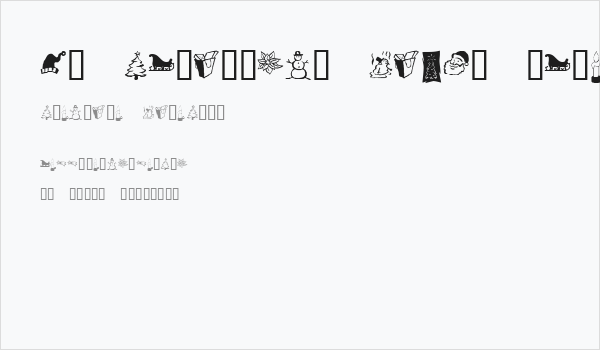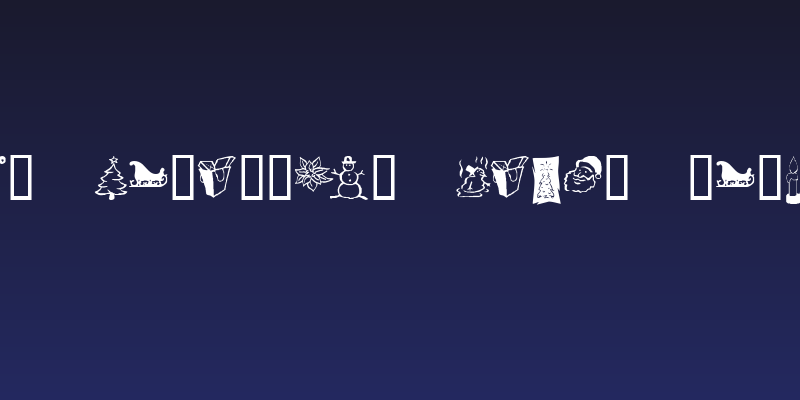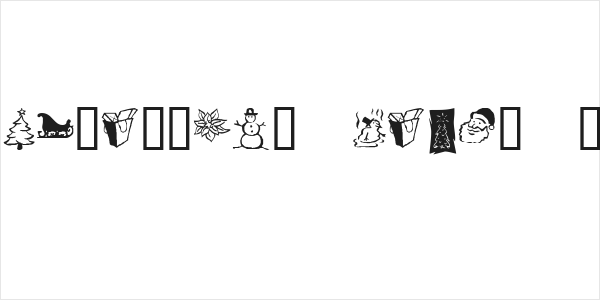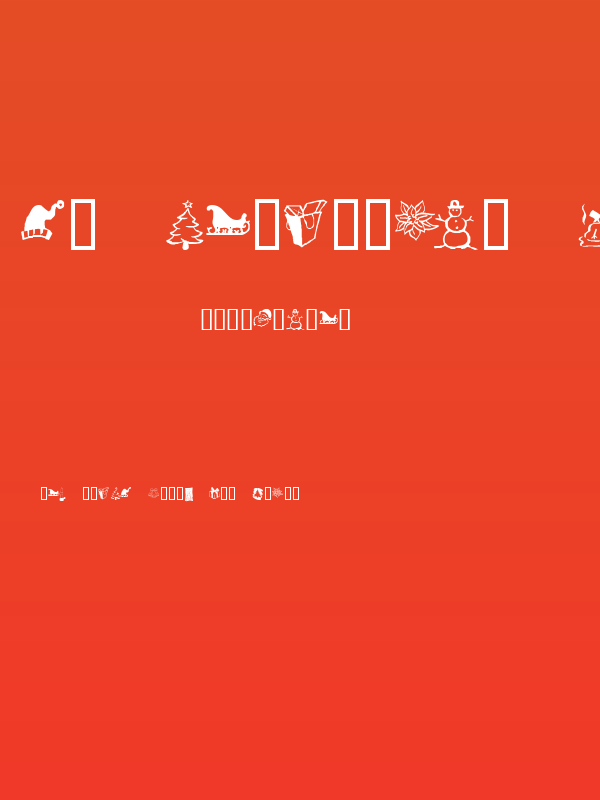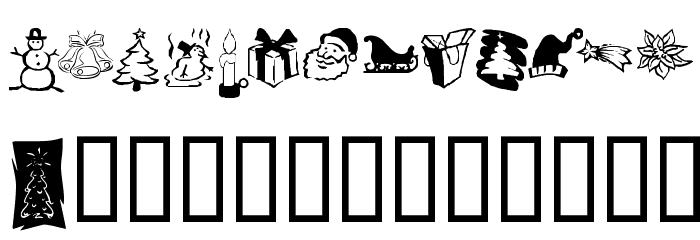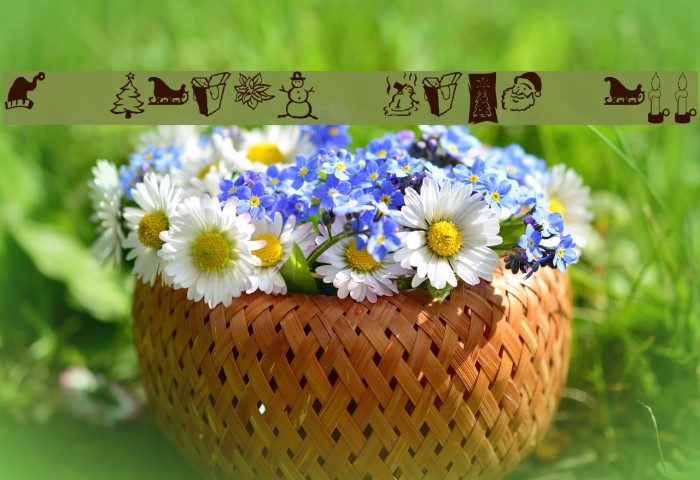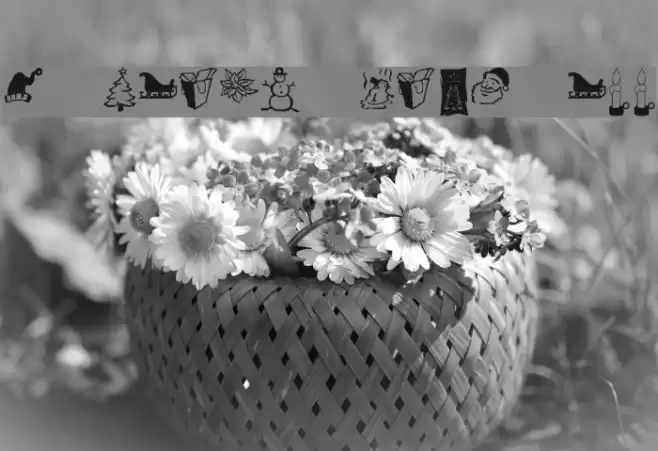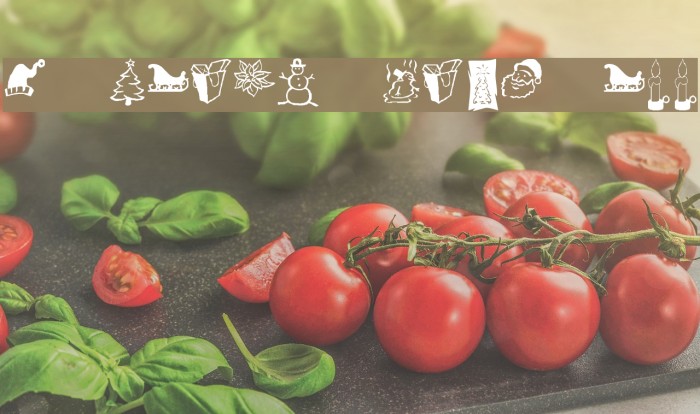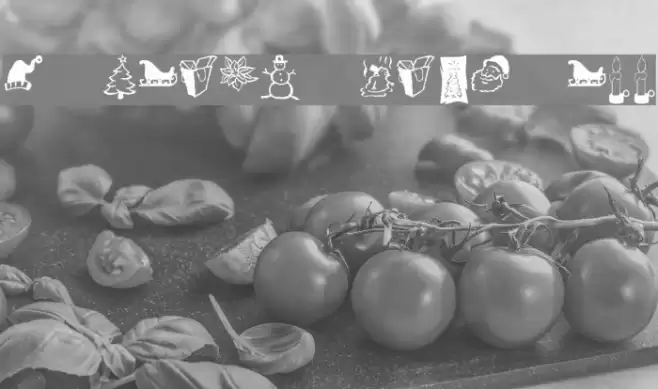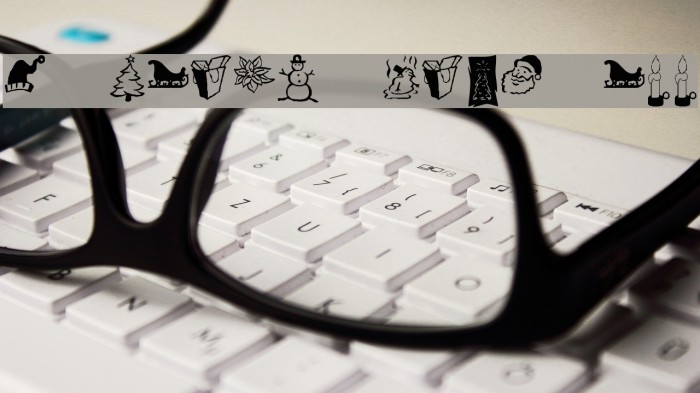
KR Christmas Dings Three Font
This is a decorative font featuring a variety of Christmas-themed icons. Each character is represented by a unique festive symbol, such as snowmen, bells, Christmas trees, candles, gifts, Santa Claus, sleighs, and stars. The icons are detailed and whimsical, capturing the essence of holiday cheer. The style is playful and illustrative, making it perfect for adding a festive touch to any project. The characters are evenly spaced, ensuring clarity and readability despite the intricate designs.
| Use Case | Logos, Headlines, Decorative elements |
| Proposed Projects | Ideal for holiday greeting cards, festive invitations, Christmas-themed posters, and seasonal decorations. |